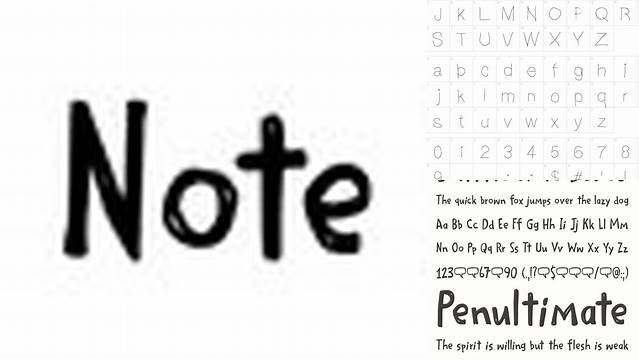
Scribble Note Font: What's the Hype?
Scribble note fonts are all the rage right now, and for good reason! They bring a hand-written, doodle-like charm that can make any design feel more personal and approachable. Perfect for everything from posters to social media graphics, these fonts are incredibly versatile.
Imagine adding a touch of authenticity to your website with a font that looks like it was jotted down by hand. Or, picture your presentation slides with a playful edge that keeps your audience engaged. The possibilities are endless when you incorporate a scribble note font into your creative arsenal.
The irregular lines and imperfect shapes of scribble note fonts give them a natural, organic feel that’s hard to replicate with traditional typefaces. This makes them ideal for projects where you want to convey a sense of fun, creativity, and individuality. Whether you’re designing a children’s book, a quirky logo, or a set of eye-catching invitations, a scribble note regular font can be a game-changer.
What is Scribble Note Regular Font?
Let's get down to the basics. A scribble note regular font is essentially a typeface that mimics the look of handwritten notes or doodles. The "regular" designation usually means it’s the standard weight and style of the font, making it highly readable and versatile for various applications.
Unlike more stylized or decorative fonts, the scribble note regular font aims for a balance between readability and personality. It's designed to be legible enough for body text while still retaining that unique, hand-drawn aesthetic. This makes it a fantastic choice for projects that require a personal touch without sacrificing clarity.
Think about how often you see handwritten fonts used in branding for small businesses or creative ventures. A scribble note regular font captures that same spirit, conveying a sense of authenticity and approachability. It's like telling your audience, "Hey, we're real people!" And in today's digital world, that kind of connection is invaluable.
Moreover, the "regular" style means it pairs well with other fonts. You can easily combine a scribble note regular font with a clean, sans-serif font for headings or a more traditional serif font for body text. This versatility allows you to create visually appealing designs that are both engaging and easy to read.
So, when you're looking for a font that's both unique and practical, a scribble note regular font should definitely be on your radar. It's the perfect way to add a touch of personality to your projects without compromising on readability or professionalism.
Why Choose a Scribble Note Font?
Why should you even consider a scribble note font? Well, there are tons of reasons! For starters, it adds a personal touch that other fonts simply can't replicate. In a world saturated with sleek, corporate designs, a scribble note font stands out by being refreshingly human.
Imagine you're designing a website for a local coffee shop. Using a scribble note font for the menu or headings can create a warm, inviting atmosphere that makes customers feel right at home. It's like saying, "Come on in, relax, and enjoy!" That kind of emotional connection can make all the difference.
Another reason to choose a scribble note font is its versatility. While it may seem like a niche choice, these fonts can be used in a wide variety of projects. From invitations and greeting cards to posters and social media graphics, a scribble note font can add a touch of whimsy and charm to almost anything.
Plus, let's not forget the fun factor! Using a scribble note font can make your designs more playful and engaging. It's a great way to inject some personality into your work and make it more memorable for your audience. Whether you're designing a logo for a children's brand or creating a set of quirky illustrations, a scribble note font can help you achieve that playful aesthetic.
And finally, a scribble note font can help you stand out from the crowd. In a world where everyone is using the same fonts, choosing something unique and unexpected can make your designs more noticeable and memorable. So, if you're looking for a way to differentiate yourself and make a lasting impression, a scribble note font is definitely worth considering.
Key Features of a Good Scribble Note Font
So, what makes a good scribble note font? It’s not just about looking like handwriting. Here are some key features to look for:
- Readability: Even though it's a scribble font, it should still be easy to read. Avoid fonts that are too messy or illegible, especially for body text.
- Consistency: The font should have a consistent style throughout all letters and characters. This ensures that your text looks cohesive and professional.
- Versatility: Look for a font that includes a variety of weights and styles, such as bold, italic, and condensed versions. This will give you more flexibility in your designs.
- Character Set: Make sure the font includes all the characters you need, including uppercase and lowercase letters, numbers, punctuation, and special symbols.
- Kerning and Spacing: Pay attention to the kerning (the space between letters) and spacing of the font. Poor kerning can make your text look awkward and unprofessional.
When choosing a scribble note font, it’s important to strike a balance between style and functionality. You want a font that looks great but is also easy to read and use. By considering these key features, you can find a scribble note font that's perfect for your projects.
Where to Find Free Downloads of Scribble Note Regular Font
Okay, let's get to the good stuff: where can you find a scribble note regular font free download? Luckily, there are several great resources online:
- Font Sites: Websites like DaFont, FontSpace, and Google Fonts offer a wide selection of free fonts, including many scribble note styles. Just be sure to check the license agreement before using any font to ensure it's free for commercial use.
- Creative Market: While Creative Market is primarily a marketplace for premium fonts, they often offer free goods each week. Keep an eye out for scribble note fonts that might be available for free download.
- MyFonts: Similar to Creative Market, MyFonts also occasionally offers free fonts. Check their website regularly to see if any scribble note fonts are available.
- Individual Designers: Many independent font designers offer their fonts for free on their personal websites or blogs. Do a little digging, and you might discover some hidden gems.
When searching for a scribble note regular font free download, it’s essential to be cautious and only download fonts from reputable sources. This will help protect your computer from malware and ensure that you’re using fonts that are properly licensed. Always read the terms of use carefully before using any font in your projects.
How to Install a Scribble Note Font
Got your scribble note regular font free download? Awesome! Now, let's get it installed. Here's how:
- Download the Font: After finding your perfect scribble note font, download the font file. It will usually be in a ZIP file.
- Extract the ZIP File: Locate the downloaded ZIP file and extract its contents. You should find one or more font files in either .otf or .ttf format.
- Install the Font (Windows):
- Right-click on the font file (.otf or .ttf) and select "Install."
- Alternatively, you can copy the font file and paste it into the Fonts folder (usually located at
C:\Windows\Fonts
).
- Install the Font (Mac):
- Double-click on the font file (.otf or .ttf). This will open Font Book.
- Click the "Install Font" button at the bottom of the Font Book window.
- Restart Your Programs: After installing the font, restart any programs you want to use it in. This ensures that the font is properly loaded and available.
Once you've installed your scribble note font, you can start using it in your favorite design software, such as Adobe Photoshop, Illustrator, or even Microsoft Word. Experiment with different sizes, colors, and styles to see how it looks in your projects.
Using Scribble Note Font in Different Design Software
Now that you've got your scribble note font installed, let's talk about using it in different design software. Whether you're a Photoshop pro or a Canva newbie, here's how to make the most of your new font:
- Adobe Photoshop:
- Open Photoshop and create a new document or open an existing one.
- Select the Type tool (T) and click on your canvas to create a text layer.
- Choose your scribble note font from the font dropdown menu in the Character panel.
- Adjust the size, color, and other settings to your liking.
- Adobe Illustrator:
- Open Illustrator and create a new document or open an existing one.
- Select the Type tool (T) and click on your artboard to create a text area.
- Choose your scribble note font from the font dropdown menu in the Character panel.
- Adjust the size, color, and other settings to your liking.
- Canva:
- Open Canva and create a new design or open an existing one.
- Select the Text tool and add a heading, subheading, or body text to your design.
- Choose your scribble note font from the font dropdown menu.
- Adjust the size, color, and other settings to your liking.
No matter what design software you're using, the process of using a scribble note font is generally the same. Simply select the Type tool, choose your font, and start typing! Experiment with different settings to see how the font looks in your projects and have fun with it!
Pairing Scribble Note Font with Other Fonts
One of the keys to using a scribble note font effectively is pairing it with other fonts. Since scribble note fonts are often playful and informal, they usually work best when paired with more neutral or structured fonts. Here are some tips for pairing your scribble note font:
- Sans-Serif Fonts: Pair your scribble note font with a clean sans-serif font for a modern and balanced look. This combination works well for websites, logos, and marketing materials.
- Serif Fonts: Combine your scribble note font with a traditional serif font for a classic and elegant feel. This pairing is ideal for invitations, greeting cards, and book covers.
- Script Fonts: Be careful when pairing your scribble note font with other script fonts, as it can sometimes look too busy or overwhelming. If you do choose to use another script font, make sure it's significantly different in style and weight from your scribble note font.
- Display Fonts: Use your scribble note font as a display font for headings or titles and pair it with a simpler font for body text. This will help your headings stand out while maintaining readability in your body text.
Experiment with different font pairings to find what works best for your projects. Don't be afraid to try new things and break the rules! The most important thing is to create a visually appealing and harmonious design.
Best Uses for Scribble Note Regular Font
So, where does a scribble note regular font really shine? Here are some of the best use cases:
- Branding: For creative businesses, blogs, or personal brands, a scribble note font can add a unique and memorable touch to your logo and overall branding.
- Invitations: For birthday parties, baby showers, or casual events, a scribble note font can create a fun and inviting atmosphere.
- Social Media Graphics: In the fast-paced world of social media, a scribble note font can help your posts stand out and grab attention.
- Educational Materials: For worksheets, presentations, or classroom posters, a scribble note font can make learning more engaging and approachable.
- Handmade Products: If you sell handmade goods, using a scribble note font in your product labels or packaging can reinforce the authenticity and personal touch of your brand.
Remember, the key is to use the scribble note font strategically and in a way that complements the overall message and aesthetic of your project.
Examples of Popular Scribble Note Fonts
Need some inspiration? Here are a few popular scribble note fonts you might want to check out:
- Permanent Marker: This Google Font is a classic choice for a hand-written look.
- Journal: A more refined and readable scribble note font.
- Coming Soon: Another great option from Google Fonts, perfect for a casual vibe.
- Schoolbell: A fun and playful font that evokes the feeling of childhood handwriting.
Browse these and other similar fonts to get a sense of what's out there and find the perfect scribble note font for your project.
Common Mistakes to Avoid When Using Scribble Note Fonts
Alright, let's talk about some common pitfalls. Here’s what not to do when using scribble note fonts:
- Overuse: Don't use a scribble note font for every single element of your design. It can quickly become overwhelming and detract from the overall aesthetic.
- Illegibility: Make sure your scribble note font is still readable, especially for body text. If people can't read what you're writing, the font is not serving its purpose.
- Inappropriate Context: Avoid using a scribble note font in formal or professional settings where it might be perceived as unprofessional or childish.
- Ignoring Spacing: Pay attention to the spacing between letters and lines. Poor spacing can make your text look cluttered and difficult to read.
By avoiding these common mistakes, you can ensure that your scribble note font enhances your designs rather than detracting from them.
The Future of Handwritten Fonts
What does the future hold for handwritten fonts like the scribble note font? As technology continues to evolve and design trends shift, it's likely that we'll see even more innovative and creative uses for these fonts.
One potential trend is the integration of handwritten fonts with virtual reality and augmented reality experiences. Imagine seeing handwritten notes floating in the air or interacting with virtual characters who use handwritten fonts to communicate. This could add a new level of immersion and personalization to these experiences.
Another trend is the use of handwritten fonts in artificial intelligence and machine learning applications. As AI becomes more sophisticated, it could learn to generate handwritten fonts that are tailored to individual users' styles and preferences. This could lead to a new era of personalized communication and design.
Overall, the future of handwritten fonts looks bright. As long as designers continue to value the human touch and the unique character that these fonts bring, they will continue to be a popular and relevant choice.
Scribble Note Font for Branding
Let's zoom in on branding. A scribble note font can be a fantastic choice for branding, especially if you're aiming for a friendly, approachable, and authentic vibe. Think about it: a scribble note font on a logo immediately conveys a sense of personality and human touch.
If you're running a small business, a scribble note font can help you stand out from the crowd. It tells your customers that you're not just another faceless corporation but a real person with a passion for what you do. This can be especially effective for businesses in the creative industries, such as artists, designers, and writers.
When using a scribble note font for branding, it's important to consider your target audience. Is your brand aimed at children, young adults, or adults? The scribble note font should be appropriate for your target demographic and reflect the overall tone and style of your brand.
And remember, consistency is key. Once you've chosen a scribble note font for your branding, stick with it across all your marketing materials, from your website to your social media profiles to your business cards. This will help create a cohesive and recognizable brand identity.
Scribble Note Font for Social Media
In the wild world of social media, standing out is everything. A scribble note font can be your secret weapon for grabbing attention and making your posts more engaging. Think about scrolling through your Instagram feed – what catches your eye? Something different, right?
Using a scribble note font on your social media graphics can help you create a more personal and authentic connection with your followers. It shows that you're not just another brand posting generic content but a real person with a unique voice and perspective.
When using a scribble note font for social media, it's important to keep readability in mind. Choose a font that is easy to read on small screens and make sure your text is large enough to be seen clearly. You may also want to use a contrasting background color to make your text stand out even more.
And don't forget to experiment with different styles and formats. Try using a scribble note font for your headings, captions, or even in your stories. The possibilities are endless!
Scribble Note Font for Websites
Your website is often the first impression people have of your brand, so it's important to make it count. A scribble note font can be a great way to add personality and charm to your website, but it's important to use it strategically.
Using a scribble note font for headings or titles can help draw visitors' attention and make your website more visually appealing. However, it's generally not a good idea to use a scribble note font for body text, as it can be difficult to read and detract from the overall user experience.
When choosing a scribble note font for your website, consider the overall design and layout of your site. The font should complement the other design elements and create a cohesive and harmonious look.
And don't forget to test your website on different devices and browsers to make sure your scribble note font looks good on all platforms. You want to ensure that everyone who visits your website has a positive experience.
Scribble Note Font for Print Materials
While digital design is all the rage these days, print materials are still important, especially for things like business cards, flyers, and brochures. A scribble note font can add a unique touch to these materials, but it's important to use it wisely.
When using a scribble note font for print materials, consider the overall design and style of your brand. The font should be appropriate for your target audience and reflect the overall message and tone of your brand.
It's also important to choose a scribble note font that is easy to read in print. Some fonts may look great on a computer screen but become difficult to read when printed. Be sure to test your font in print before you commit to using it in your marketing materials.
And don't forget to consider the paper stock and printing method you'll be using. Some fonts may look better on certain types of paper or when printed with certain methods. Experiment with different options to find what works best for your brand.
Scribble Note Font and Readability
Let's be real: readability is crucial. No matter how cool a scribble note font looks, if people can't read it, it's not doing its job. So, how do you ensure that your scribble note font is both stylish and legible?
First, choose a scribble note font that is relatively easy to read. Some fonts are so stylized that they become almost illegible. Look for fonts that have clear, well-defined letters and that are not too cluttered or chaotic.
Second, use your scribble note font sparingly. As we mentioned earlier, it's generally not a good idea to use a scribble note font for body text. Instead, use it for headings, titles, or other short pieces of text.
Third, pay attention to the size and spacing of your text. Make sure your text is large enough to be read easily and that there is enough space between the letters and lines to prevent it from becoming too crowded.
Finally, test your text on different devices and screens to make sure it looks good on all platforms. What looks great on your computer screen may not look so great on a mobile phone.
Designing a Logo with Scribble Note Font
A logo is the face of your brand, so you want to make sure it's memorable and effective. A scribble note font can be a great way to create a unique and eye-catching logo, but it's important to use it carefully.
When designing a logo with a scribble note font, start by considering your brand's personality and values. What message do you want to convey with your logo? A scribble note font can be a great choice if you want to project a friendly, approachable, and authentic image.
Next, choose a scribble note font that is appropriate for your brand. Some fonts are more playful and whimsical, while others are more sophisticated and elegant. Select a font that reflects the overall tone and style of your brand.
Then, experiment with different layouts and designs. Try using the scribble note font for your company name, tagline, or a key word or phrase. You may also want to incorporate other design elements, such as illustrations or symbols, to create a more visually appealing logo.
Finally, get feedback from others. Show your logo to friends, family, and colleagues and ask for their honest opinions. This will help you identify any potential problems or areas for improvement.
Creating Eye-Catching Headlines with Scribble Note Font
Headlines are your first chance to grab your audience's attention, so you want to make them as compelling as possible. A scribble note font can be a great way to create headlines that stand out and draw readers in.
When creating headlines with a scribble note font, think about the message you want to convey. What is the main point of your article or blog post? Use your headline to summarize the key information and entice readers to learn more.
Next, choose a scribble note font that is appropriate for your topic and audience. Some fonts are more serious and professional, while others are more playful and fun. Select a font that reflects the overall tone and style of your content.
Then, experiment with different sizes, colors, and styles. Use a larger font size for your headline to make it more prominent. You may also want to use a contrasting color to make it stand out from the rest of the text.
Finally, test your headlines on different devices and screens to make sure they look good on all platforms. A headline that looks great on your computer screen may not look so great on a mobile phone.
Combining Scribble Note Fonts with Illustrations
Illustrations and fonts are a match made in design heaven! Pairing a scribble note font with illustrations can create a visually stunning and engaging design. Think about a children's book, a quirky website, or a fun social media post – illustrations and scribble note fonts can bring them to life.
When combining scribble note fonts with illustrations, consider the overall style and tone of your design. Do you want to create a playful and whimsical look, or something more sophisticated and elegant? Choose illustrations that complement your font and enhance the overall message.
Experiment with different layouts and compositions. Try placing your illustrations next to your text, behind your text, or even within your text. The possibilities are endless!
And don't forget to pay attention to color and contrast. Use colors that complement each other and that create a visually appealing balance. You may also want to use a contrasting background color to make your illustrations and text stand out even more.
Using Scribble Note Fonts for Invitations
Planning a party or event? A scribble note font can be a fantastic choice for creating invitations that are both stylish and personal. Whether you're hosting a birthday party, a baby shower, or a casual get-together, a scribble note font can add a touch of whimsy and charm to your invitations.
When using scribble note fonts for invitations, consider the overall theme and style of your event. What kind of atmosphere do you want to create? A scribble note font can be a great choice if you're going for a relaxed, informal vibe.
Choose a scribble note font that is easy to read and that complements the other design elements of your invitation. You may also want to use a contrasting color to make your text stand out.
And don't forget to include all the important details, such as the date, time, location, and RSVP information. Make sure your invitations are clear, concise, and easy to understand.
Creating a Digital Planner with Scribble Note Fonts
Digital planners are all the rage these days, and for good reason. They're a convenient and eco-friendly way to stay organized and on top of your schedule. A scribble note font can add a personal and creative touch to your digital planner.
When creating a digital planner with a scribble note font, consider the overall layout and design of your planner. How do you want to organize your daily, weekly, and monthly tasks? A scribble note font can be used for headings, labels, and other key elements.
Choose a scribble note font that is easy to read and that complements the other design elements of your planner. You may also want to use different colors to highlight important dates and deadlines.
And don't forget to add some personal touches, such as inspirational quotes, stickers, or even hand-drawn illustrations. A digital planner is a reflection of your personality and style, so make it your own!
Scribble Note Font and Accessibility
Accessibility is a must in design. We want everyone to be able to read and understand our content, regardless of their abilities. So, how does a scribble note font fit into the accessibility equation?
Well, the truth is that scribble note fonts can sometimes pose challenges for people with visual impairments or reading disabilities. Because these fonts are often stylized and irregular, they can be difficult to read for some individuals.
However, that doesn't mean you should avoid using scribble note fonts altogether. It just means you need to be mindful of accessibility and take steps to ensure that your content is readable for everyone.
One way to improve accessibility is to choose a scribble note font that is relatively easy to read. As we've mentioned before, some fonts are more legible than others. Look for fonts that have clear, well-defined letters and that are not too cluttered or chaotic.
Another way to improve accessibility is to use your scribble note font sparingly. Avoid using it for large blocks of text and instead use it for headings, titles, or other short pieces of text.
And finally, provide alternative text for any images or graphics that contain scribble note fonts. This will allow people with visual impairments to understand the content of your images, even if they can't read the text directly.
Monetizing Your Font Designs
If you're a talented font designer, you may be wondering how to monetize your creations. There are several ways to make money selling fonts, including scribble note fonts.
One option is to sell your fonts through online marketplaces, such as Creative Market, MyFonts, or FontSpring. These platforms provide a ready-made audience of designers and creatives who are looking for high-quality fonts.
Another option is to sell your fonts directly through your own website or online store. This gives you more control over your branding and pricing, but it also requires more effort in terms of marketing and promotion.
You can also license your fonts to businesses or organizations for use in their branding or marketing materials. This can be a lucrative option if you have a unique or highly sought-after font.
And finally, you can offer custom font design services to clients who need a unique font created specifically for their brand or project. This requires more time and effort, but it can also be a highly rewarding option.
Resources for Learning More About Typography
Want to become a typography master? Here are some resources to help you learn more about fonts, typography, and design: